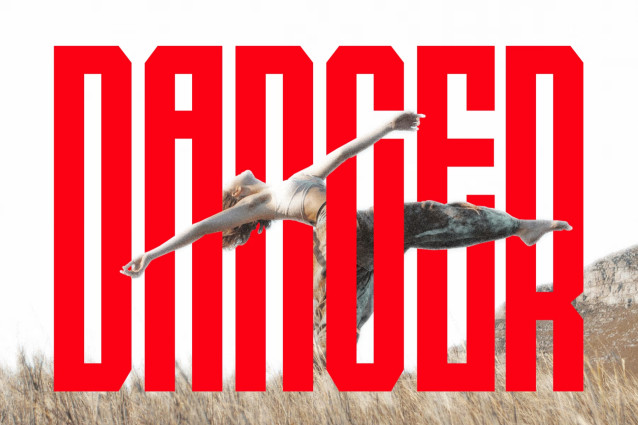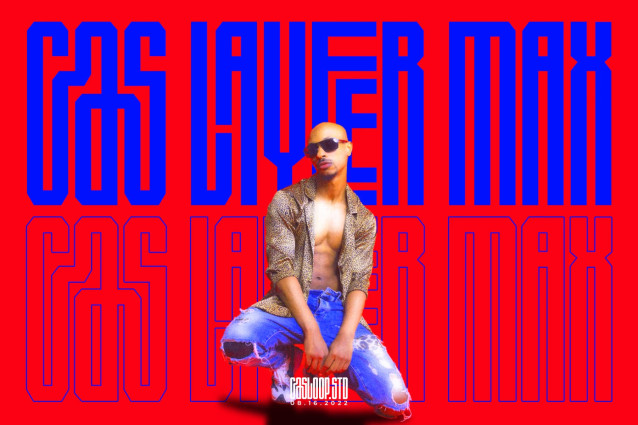
Cas Layeer Max Font – a condensed sans-serif masterpiece, pushes the limits with dynamic, layered design influenced by brutalism, sports, 3D adventures, and techno aesthetics. Crafted for the font future, it features multi-layered ligatures and a 45-degree angle, embodying the spirit of free street culture with a touch of Y2K flair.
Experience the impressive impact of Cas Layeer Max across websites, packaging, logos, branding, album covers, 3D projects, and posters. The font’s unique combination of clear ligatures, uppercase dominance, and a slender yet massive form, inspired by 1950s style and bison strength, guarantees satisfaction and modernizes contemporary design.
Cas Layeer Max stuns with gorgeous, eccentric twists, blending vibrant, youthful vibes with hi-tech athleticism. Infused with a touch of modern retro, its sporty, futuristic, and clean style makes it perfect for conveying an original and unique mood in gym, gaming, and travel designs. The font’s massive shape and maximized space, combined with bold sans-serif tech, create an ideal choice for modern, dynamic designs.
Other important features such as a suitable and functional style set are highlighted in this typeface.